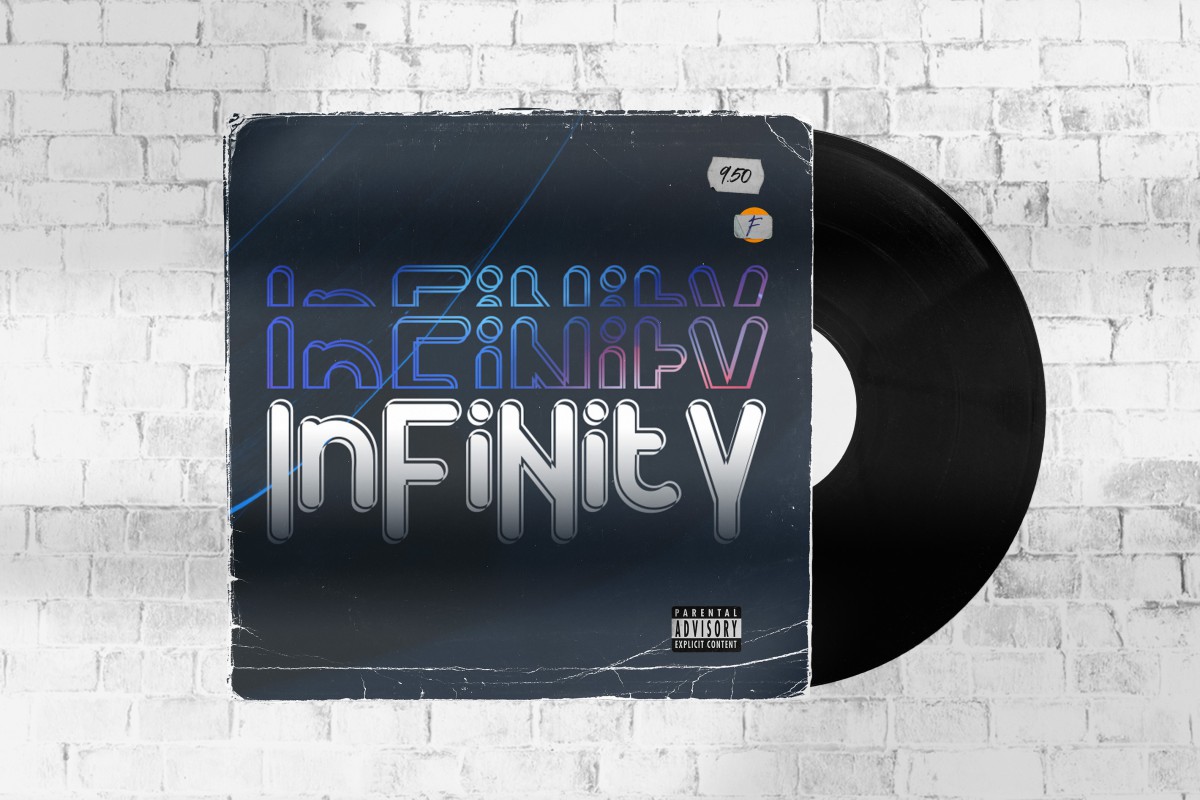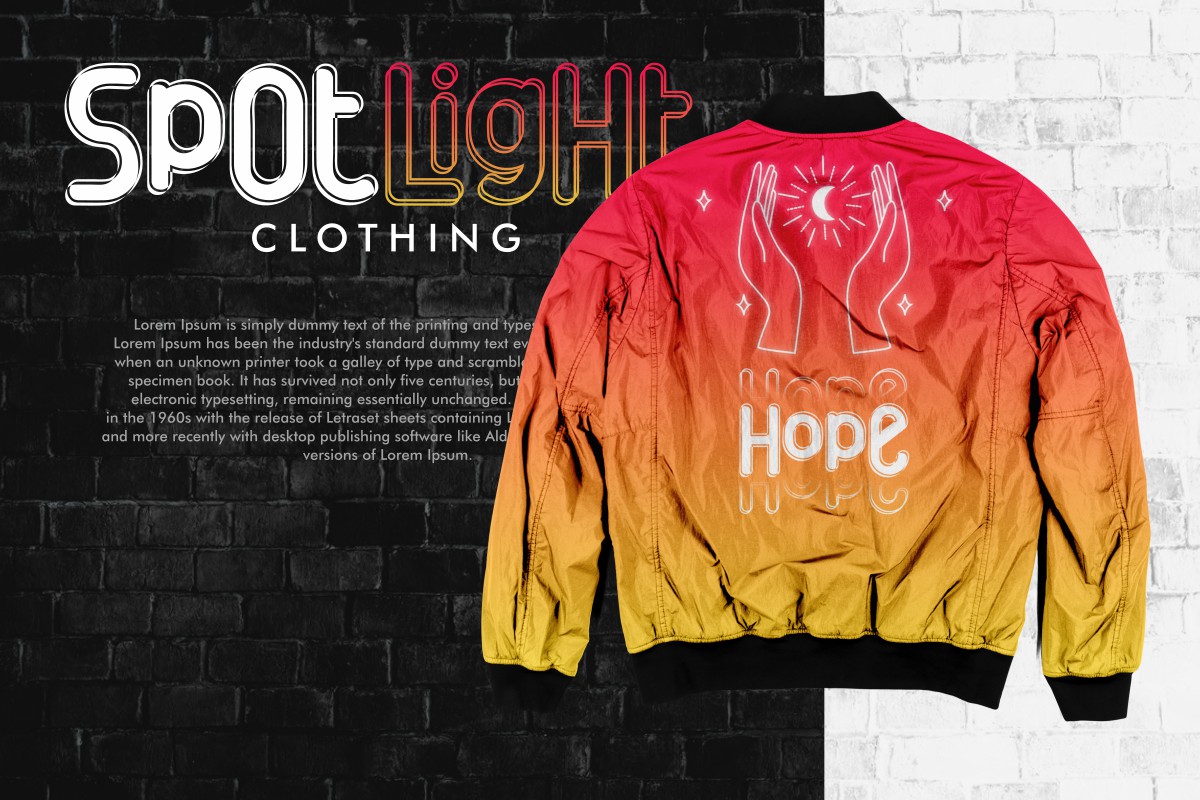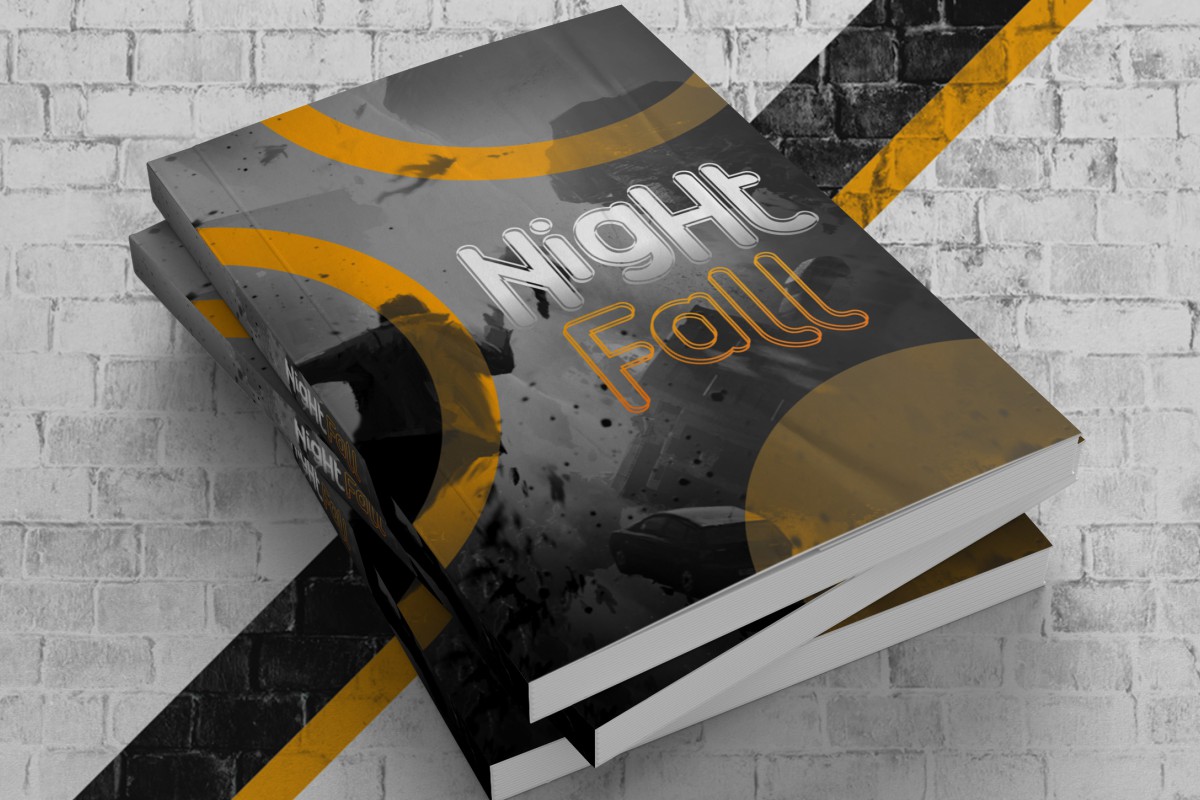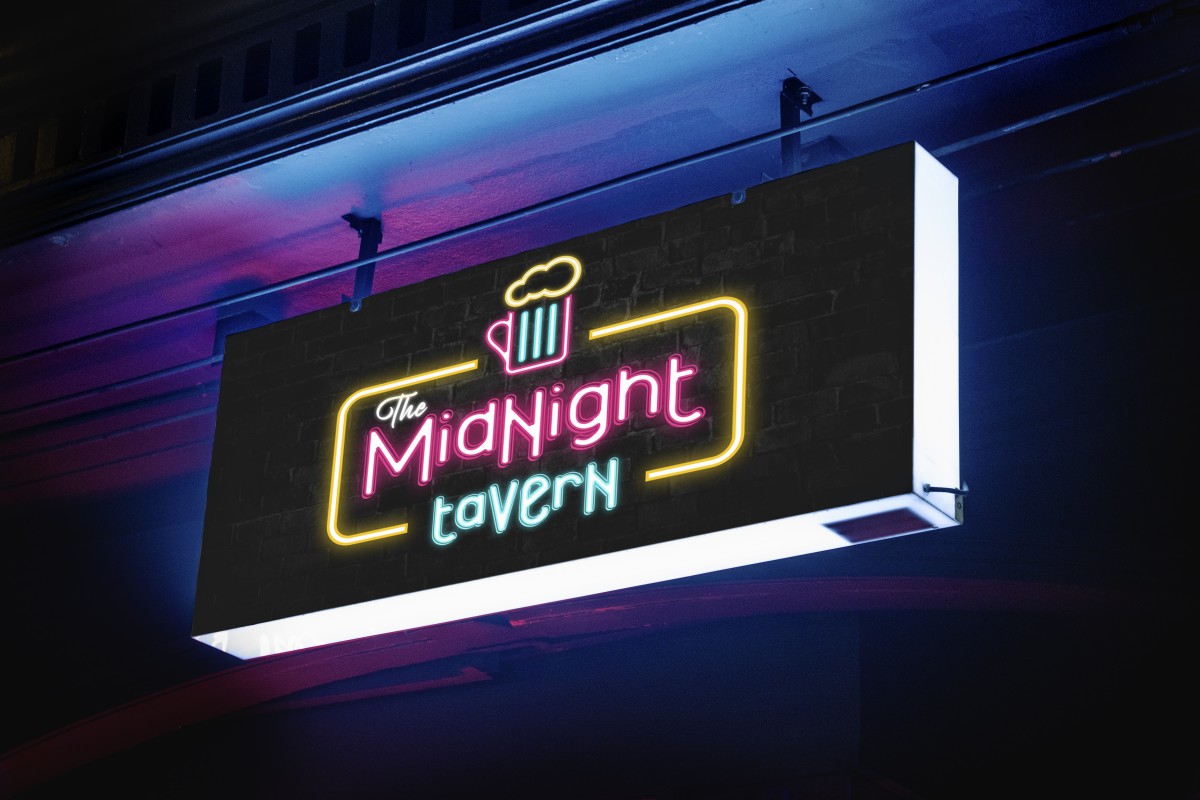
Line Light Display Font
This is a display font with special effect and edgy style. Includes 2 font families :regular and outline. This font is perfect for using printed materials, letters for signs, product designs or whatever your work requires contemporary light style.
Line Light Font includes full set of Uppercase and Lowercase Basic Characters, Numerals and Punctuation. This font family has two attractive styles, regular and outline